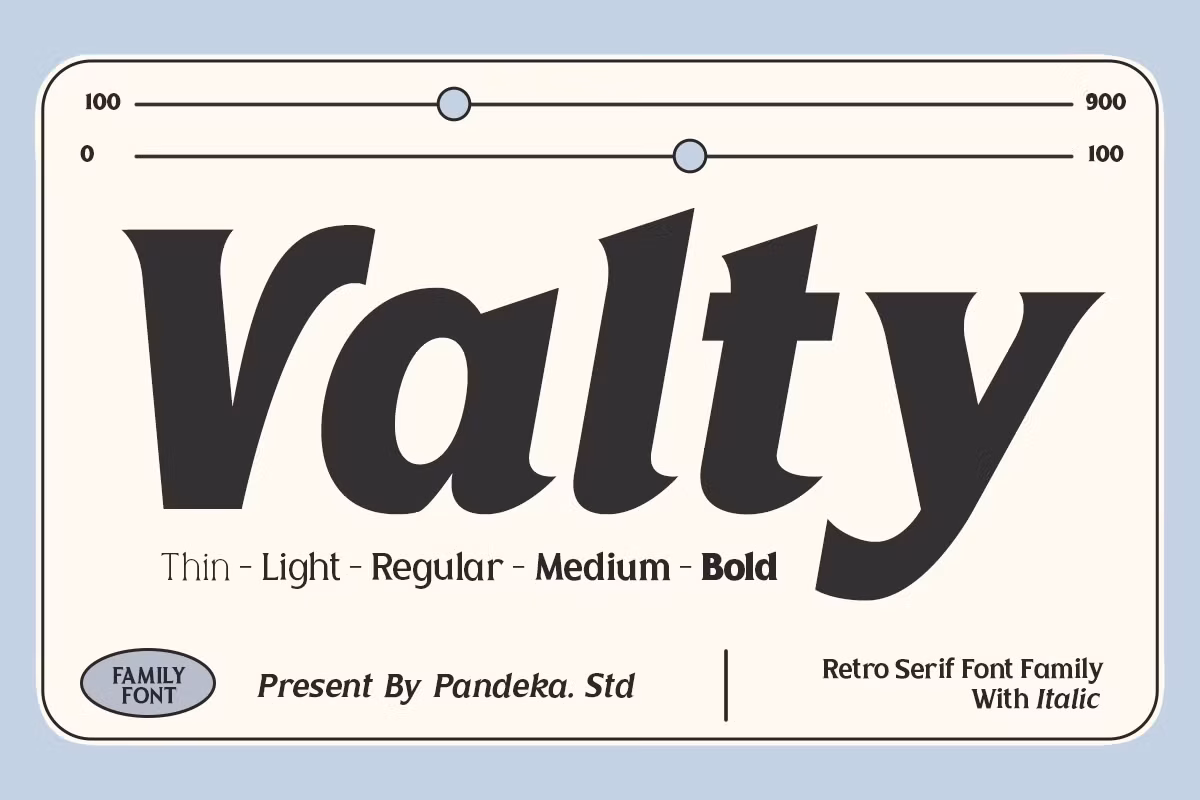
Valty Font Free Download is a refined variable typeface that brings together the timeless elegance of classic serif design with the flexibility of modern font technology. With its graceful curves, sharp serifs, and smooth transitions between weights, Valty is ideal for branding, editorial work, book covers, high-end packaging, and elegant digital content.
As a variable font, Valty allows you to fine-tune its weight and style with precision, making it a powerful tool for designers who crave both beauty and adaptability. It includes full uppercase and lowercase sets, numerals, punctuation, and thoughtfully designed ligatures for a sophisticated finish.
Whether you're creating a luxury brand identity or a polished magazine layout, Valty Font Free Download offers the aesthetic and versatility to elevate your typography. Test it out in personal or demo projects, and remember to obtain the proper license for any commercial use. Add a touch of classic refinement to your next design with this beautifully crafted variable serif font.